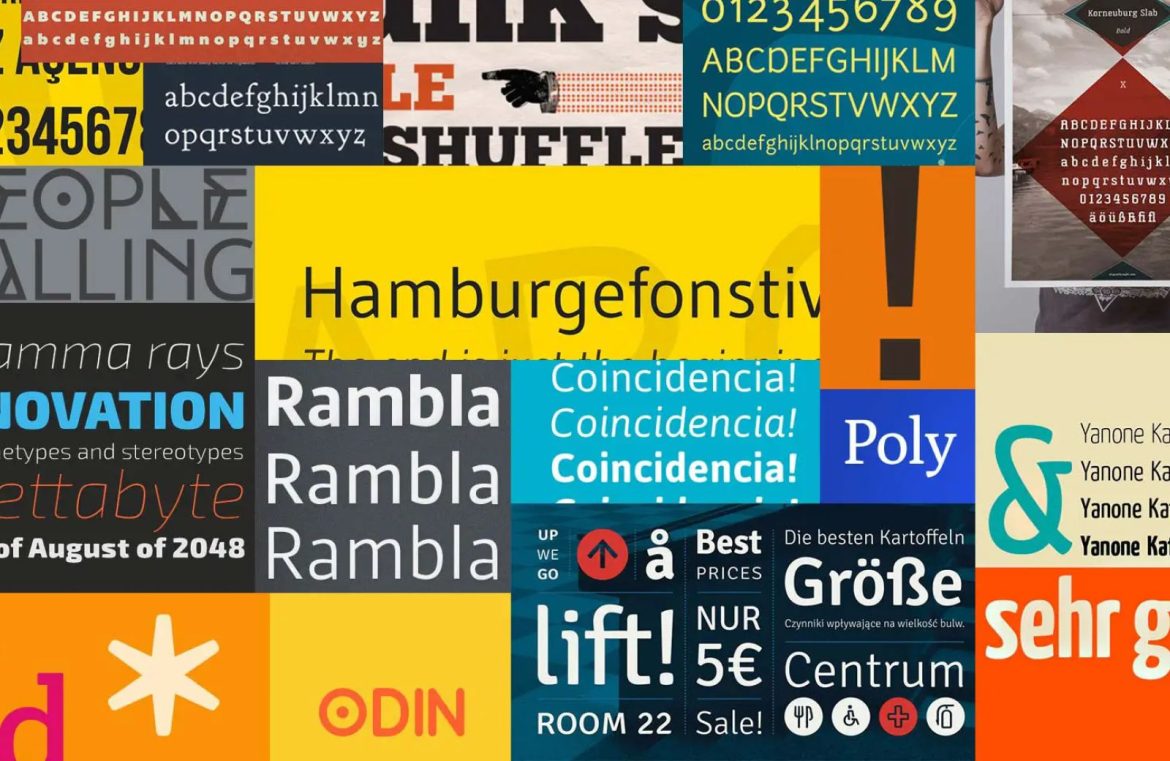
As creative minds in the digital space, designers are constantly on the lookout for free fonts that add uniqueness to their projects. Unearthing free fonts of high value—a full range of styles within a family and fonts suitable for both text and display—can be a formidable challenge. This compilation aims to introduce you to an exceptional selection of completely free fonts, aesthetically diverse and pleasing to the designer’s eye. These fonts are ready to infuse creativity and charm into your next piece of work.
Bold Fonts that Make a Statement
Let’s begin our journey with bold fonts that are ready to make a big impact. Among the chunky typefaces, ChunkFive stands out; however, the lineup also includes other strong contenders, like Troika, for a modern, papercut effect.
Bemio
Chunk
Troika